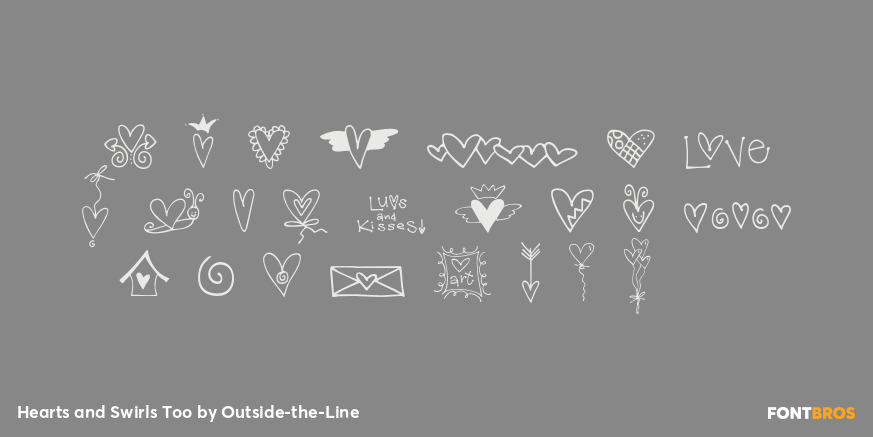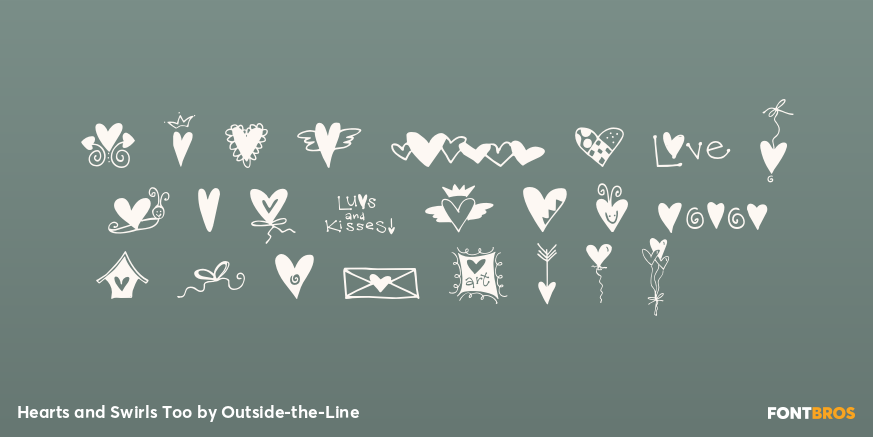
Hearts and Swirls Too
Font Family by Outside-the-Line
48 whimsical hearts and swirls, some solid, some line but lots of little graphics for your Valentine needs. So many ways to say ?I Love You?!